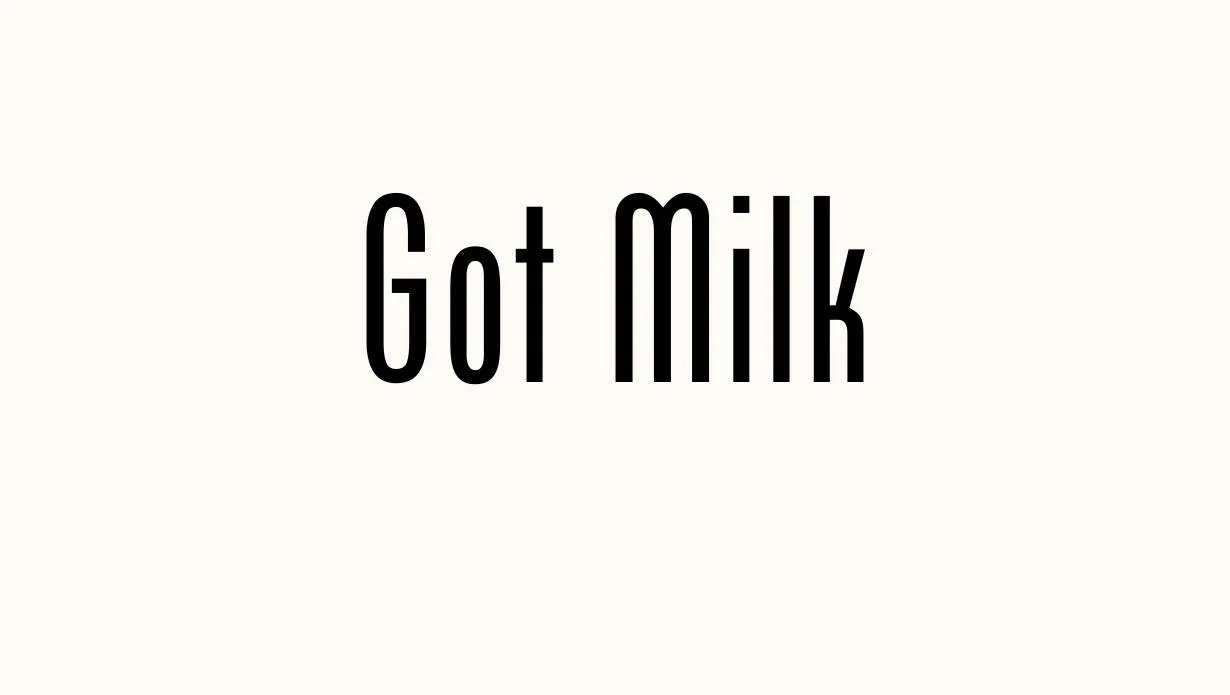
The Got Milk Font is a sans serif texture that has a neat and engaging texture look. It was created by a well-known typographic designer Morris Fuller Benton. He already designed many famous fonts that can be read and understood easily.
This font was published through Monotype Corporation in the 2000s. It includes different kinds of weights and styles like bold, italic, and regular and has bold and sharp typefaces that work well with mike sans font. The Got Milk texture has two file formats: OpenType (OTF) and TrueType (TTF).
Use of Got Milk Font
This stunning texture was first time used in America for a logo campaign in the 1990s. The main objective behind this campaign was to encourage people to utilize this texture more for branding design, or logo purposes.
If you are looking forward to utilizing the alternative font to this unique and attractive typeface, so go with benton sans font. This font has many extended families and weights. It contains various types of character sets such as uppercase letters, small letters, numerals, symbols, and punctuation.
What kind of font is Got Milk Font?
This font is a sans serif texture that has a neat and engaging texture look. It was created by a well-known typographic designer Morris Fuller Benton.